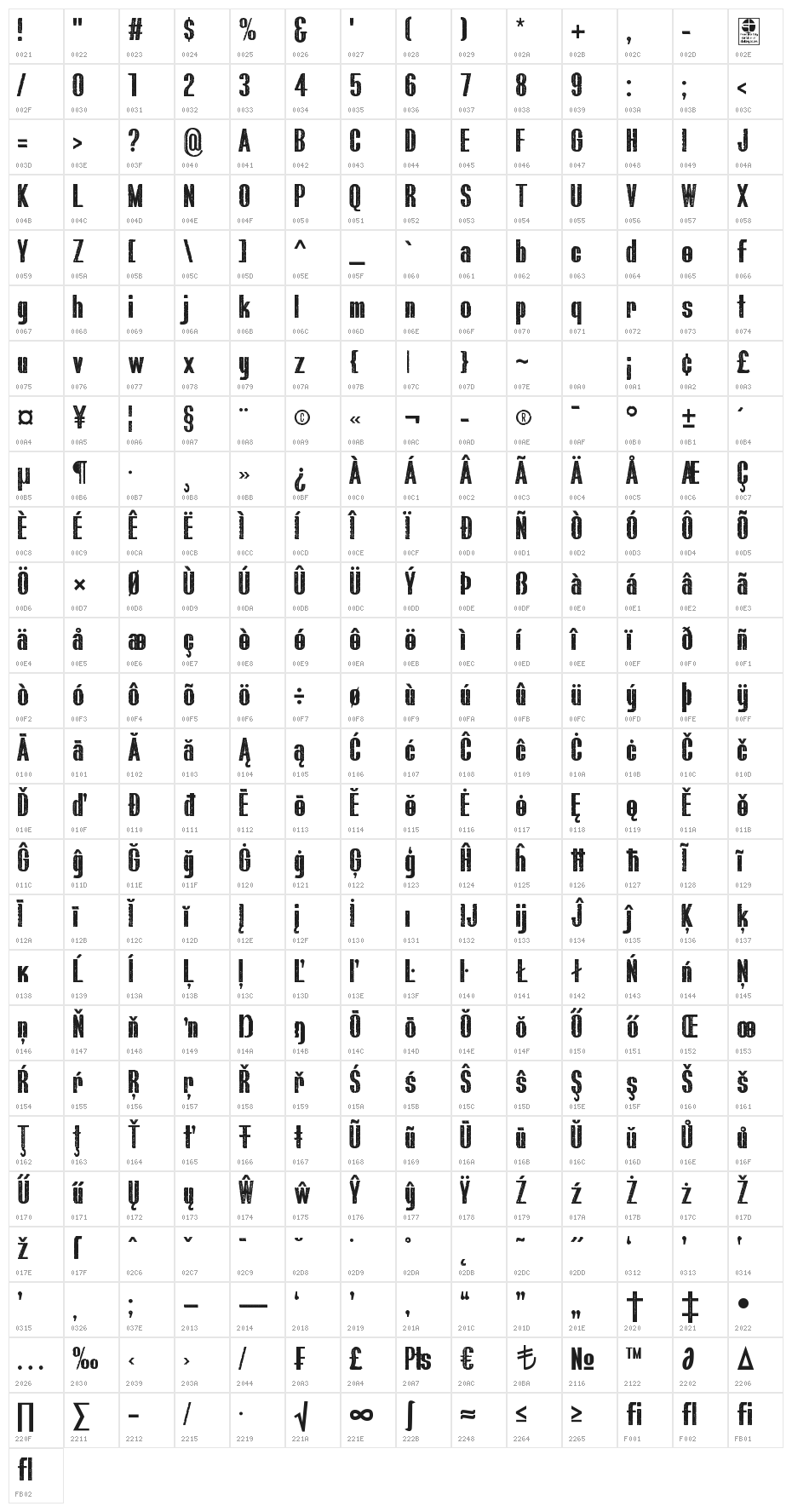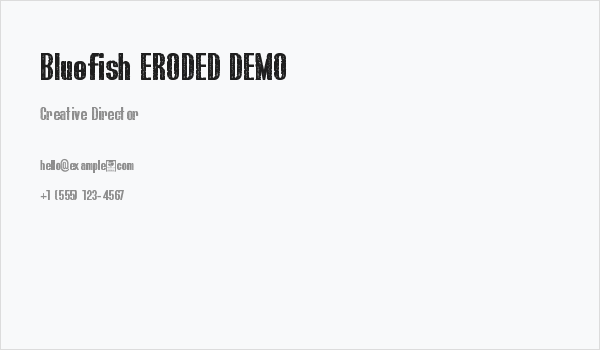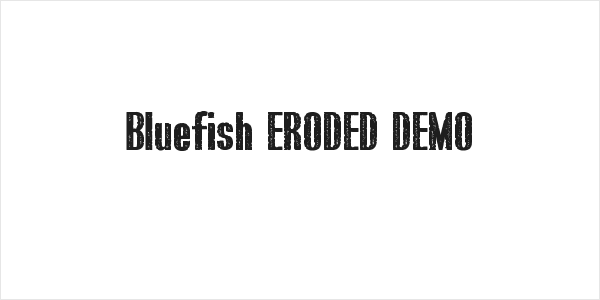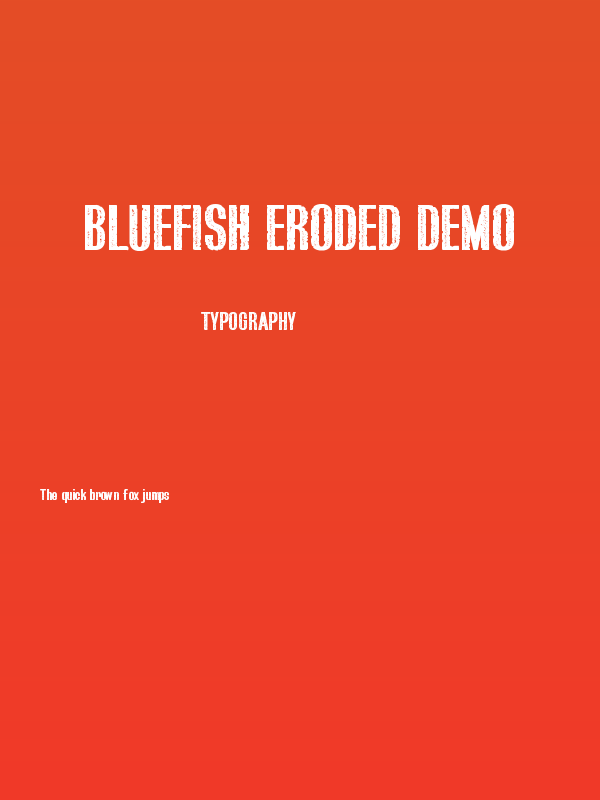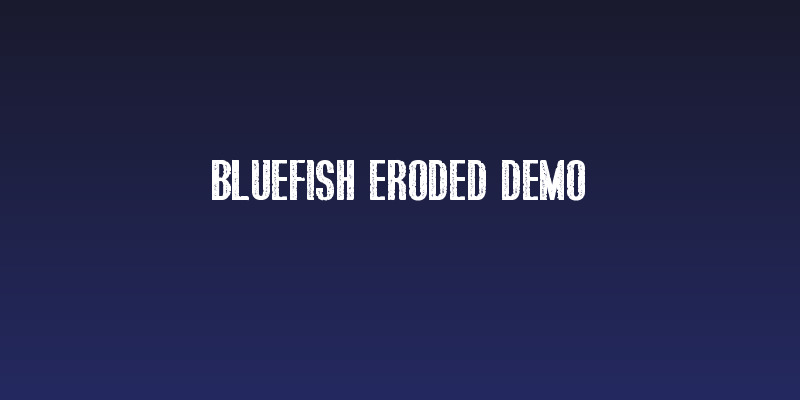
Bluefish ERODED DEMO Font
Bluefish ERODED DEMO Description
This font features a distressed, eroded style that gives it a rugged, vintage appearance. The uppercase and lowercase letters are bold and impactful, with a textured look that suggests wear and tear. The numbers and special characters maintain this eroded aesthetic, making the font suitable for designs that require a gritty, industrial feel. The characters are well-defined despite their distressed appearance, ensuring readability while adding a unique visual interest. This font is ideal for projects that aim to convey a sense of history or rawness, such as posters, album covers, or branding for products with a rustic or edgy theme.
| Proposed Projects | Ideal for posters, album covers, branding for rustic or edgy products, and any design needing a gritty, industrial feel. |